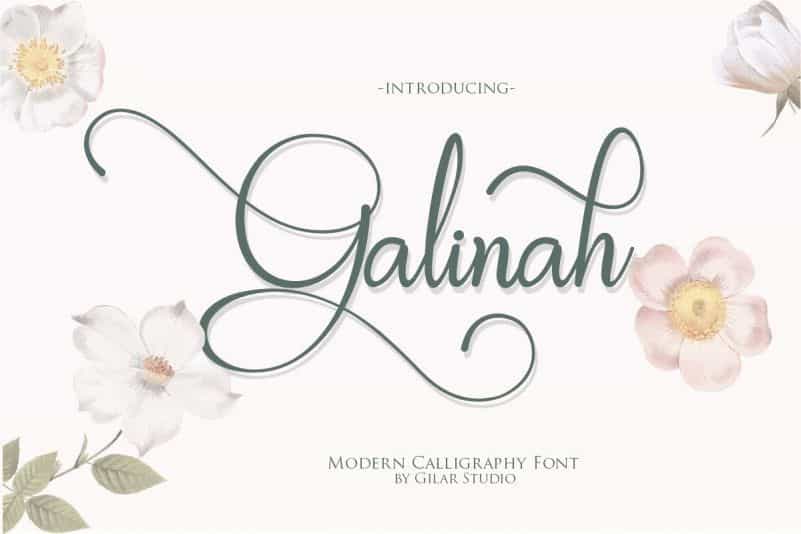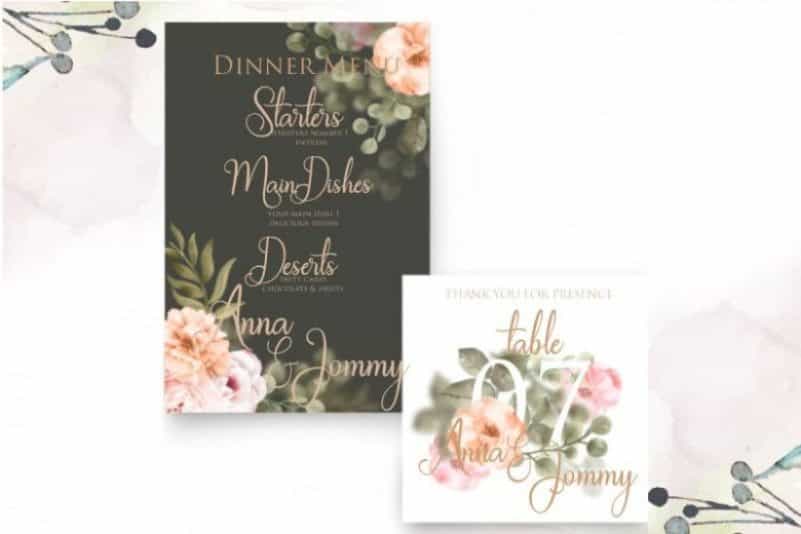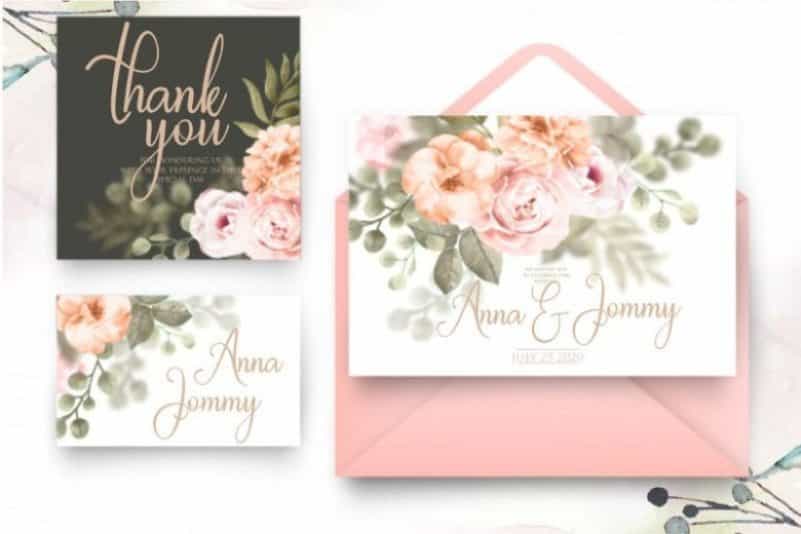
Galinah is a Modern Calligraphy Script Font, every single letters of this font has been designed so carefully to make your text looks beautiful. With modern script style this font will perfect for many different project, example: invitations, greeting cards, posters, name card, quotes, blog header, branding, logo, fashion, apparel, letters, stationery and so on.